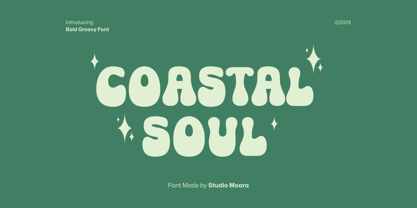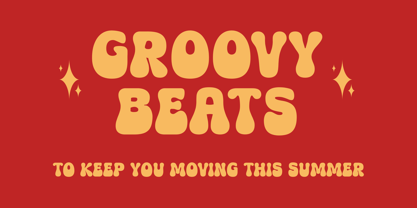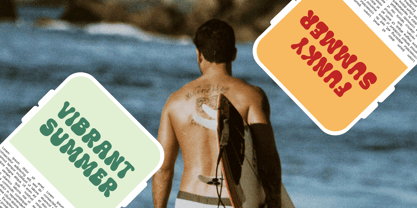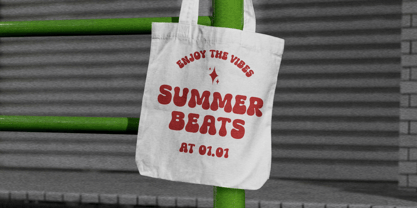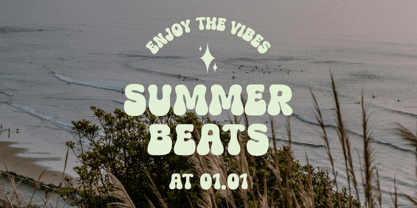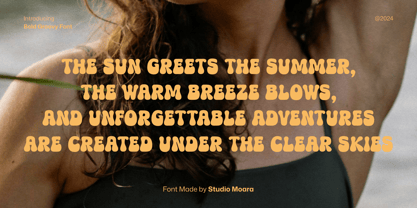
Coastal Soul
The Coastal Soul Font Family was designed by Panca Ahmadi Hasan and published by Coasta. Coastal Soul contains 1 styles. More about this family
Embark on a typographic journey with Coasta Soul, the groovy display font that breathes life into your designs. This font's retro vibes and fluid letterforms transport you straight to the heart of the '70s, creating a captivating and soulful aesthetic. Perfect for posters, album covers, and branding, Coasta Soul brings a dose of laid-back charm to any project. Let your creativity flow with this groovy font, infusing your designs with the spirit of an era defined by freedom and expression.